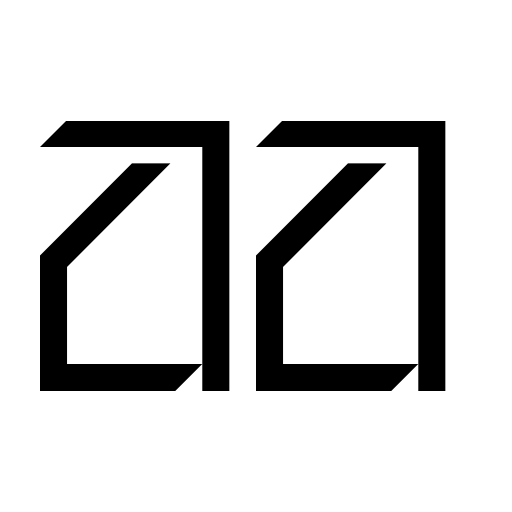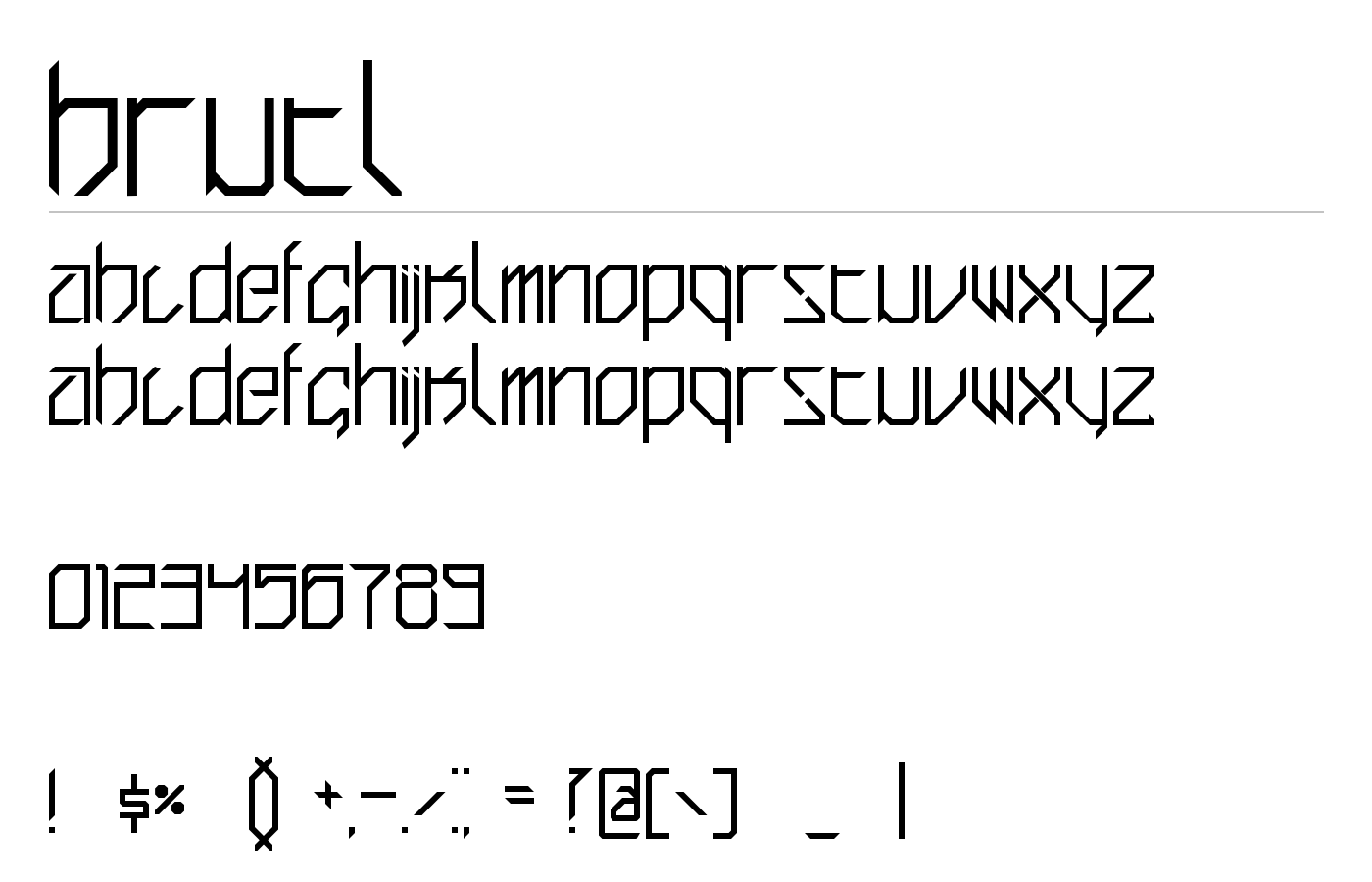
Brutl is a distinctive sans serif font with a sharp, geometric design that conveys a modern and edgy feel. Its narrow width, angular strokes, and unique character shapes make it ideal for bold headlines, branding, and projects that seek a futuristic or tech-inspired vibe. This font works best where a strong, unconventional look is desired, especially in digital media and creative packaging.
brutl Font
About brutl Font